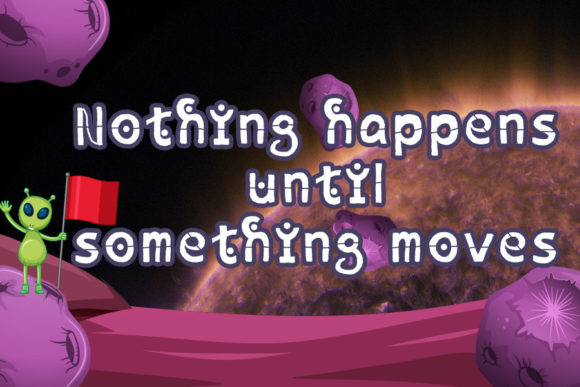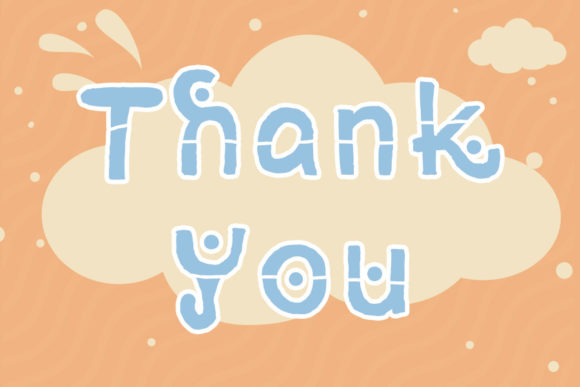
Baby Alien Font: The Perfect Choice for Fun and Playful Designs
In the world of typography, fonts play a crucial role in conveying the tone and personality of a design. When it comes to creating engaging and lively designs, especially for children, the right font can make all the difference. This is where the Baby Alien Font comes in – a fun and quirky display font that embodies playfulness and authenticity.
What is Baby Alien Font?
Baby Alien Font is a unique and eye-catching display font designed to add a touch of whimsy and fun to any design. Its playful and childlike appearance makes it perfect for children’s themed designs, such as kids’ party invitations, children’s book covers, and educational materials. The font’s quirky and authentic feel also makes it suitable for a wide range of creative projects, from posters and flyers to social media graphics and crafts.
Characteristics of Baby Alien Font
The Baby Alien Font boasts several characteristics that make it stand out from other fonts. Some of its notable features include:
- Playful and childlike appearance: The font’s design is inspired by the fun and carefree nature of childhood, making it perfect for kids’ designs.
- Quirky and authentic feel: The font’s unique and irregular shape gives it a distinctive and genuine feel that sets it apart from more traditional fonts.
- Highly legible: Despite its playful nature, the Baby Alien Font is highly legible, making it easy to read and understand.
Why Use Baby Alien Font?
There are many reasons why designers and crafters might choose to use the Baby Alien Font in their projects. Some of the benefits of using this font include:
- Instant attention-grabber: The font’s playful and quirky appearance makes it an instant attention-grabber, perfect for designs that need to stand out.
- Perfect for kids’ designs: The font’s childlike appearance makes it a natural fit for kids’ designs, from party invitations to children’s book covers.
- Versatile: The Baby Alien Font can be used in a wide range of creative projects, from posters and flyers to social media graphics and crafts.
- Easy to pair with other fonts: The font’s unique appearance makes it easy to pair with other fonts, allowing designers to create visually appealing and harmonious designs.
Tips for Using Baby Alien Font
To get the most out of the Baby Alien Font, here are a few tips to keep in mind:
- Use bright colors: The font’s playful nature is perfectly complemented by bright and bold colors, making it a great choice for designs that need to pop.
- Experiment with font sizes: The Baby Alien Font can be used at a range of font sizes, from large display fonts to smaller body text.
- Pair with other playful fonts: The font’s quirky appearance makes it easy to pair with other playful fonts, creating a fun and lively design.
In conclusion, the Baby Alien Font is a fun and quirky display font that embodies playfulness and authenticity. Its childlike appearance and highly legible design make it perfect for kids’ designs, while its versatility and ease of use make it suitable for a wide range of creative projects. Whether you’re a designer or crafter, the Baby Alien Font is a great choice for adding a touch of whimsy and fun to your designs.